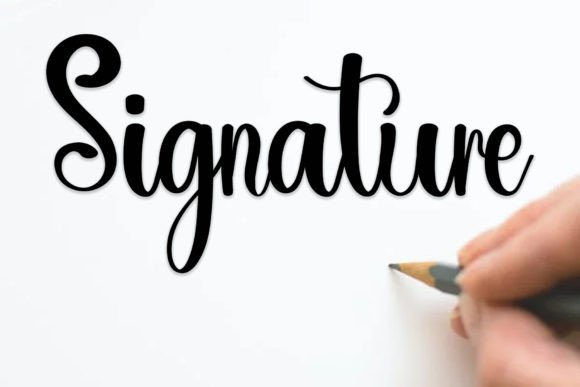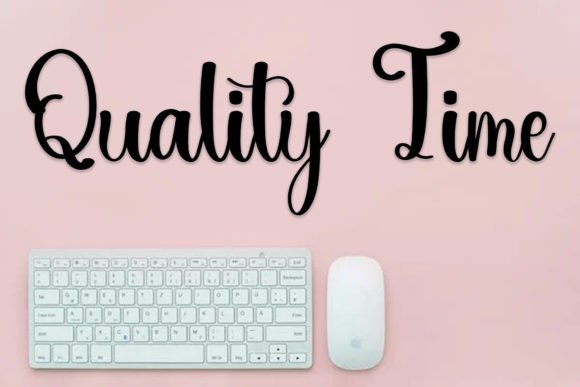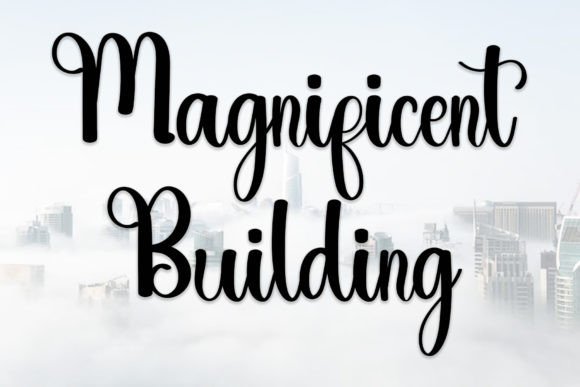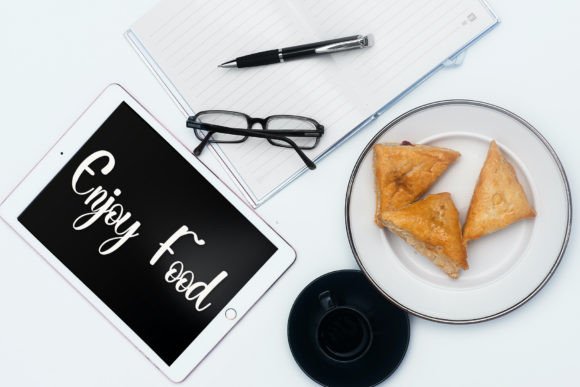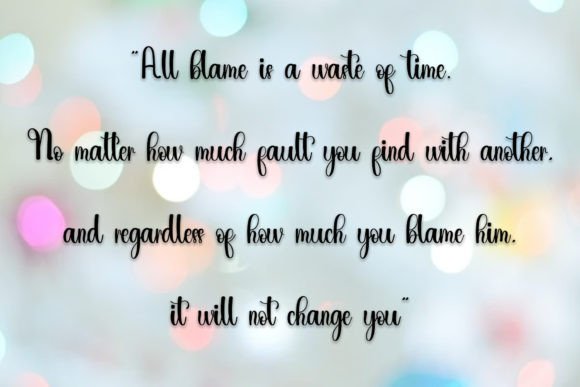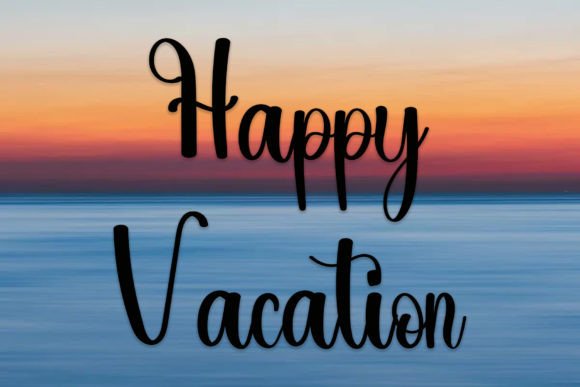
Introducing Building Font: A Festive and Merry Typeface for the Holiday Season
The holiday season is upon us, and what better way to get into the spirit than with a font that’s as festive and merry as you are? Look no further than Building Font, a decorative typeface that’s perfect for adding a touch of enchantment to your designs. With its whimsical flair and nostalgic ambiance, this font is sure to bring a smile to everyone’s face.
What Makes Building Font So Special?
Building Font is more than just a typeface – it’s an experience. With its intricate details and decorative elements, it’s like a breath of fresh air for your designs. Whether you’re working on greeting cards, gift tags, or holiday-themed projects, this font is sure to make your work stand out from the crowd. And with its PUA encoding, you can access all of the amazing glyphs and ligatures with ease!
As a designer or crafter, you know how important it is to have the right tools to bring your ideas to life. Building Font is the perfect addition to your toolkit, providing a unique and festive touch to your projects. Whether you’re creating digital content or handmade crafts, this font is sure to inspire your creativity and add a touch of magic to your work.
Use Building Font for a Variety of Projects
The possibilities are endless with Building Font! Here are just a few ideas to get you started:
- Greeting cards: Create festive and personalized greeting cards for your loved ones, complete with decorative elements and whimsical flair.
- Gift tags: Add a touch of enchantment to your gifts with custom gift tags featuring Building Font.
- Holiday-themed projects: From Christmas decorations to Halloween costumes, Building Font is the perfect addition to any holiday-themed project.
- Digital content: Use Building Font to add a festive touch to your digital content, from social media graphics to blog posts.
The Benefits of PUA Encoding
So what is PUA encoding, and why is it so important? PUA (Private Use Area) encoding allows designers to access a wide range of glyphs and ligatures, making it easier to create unique and decorative text. With Building Font, you can access all of the amazing glyphs and ligatures with ease, giving you more creative freedom and flexibility.
Why Choose Building Font?
With so many fonts to choose from, why should you choose Building Font? Here are just a few reasons:
- Unique and festive design: Building Font is unlike any other font out there, with its intricate details and decorative elements.
- Easy to use: With PUA encoding, you can access all of the amazing glyphs and ligatures with ease.
- Versatile: Building Font is perfect for a wide range of projects, from greeting cards to digital content.
- Nostalgic ambiance: Building Font has a nostalgic ambiance that’s sure to bring a smile to everyone’s face.
Get Ready to Add Some Magic to Your Designs
In conclusion, Building Font is a must-have for anyone looking to add a touch of enchantment to their designs. With its decorative elements, whimsical flair, and nostalgic ambiance, this font is perfect for the holiday season. Whether you’re working on greeting cards, gift tags, or holiday-themed projects, Building Font is sure to bring a cheerful and festive touch to your work. So don’t wait – download Building Font today and let your typography shine with the magic of the holiday season!